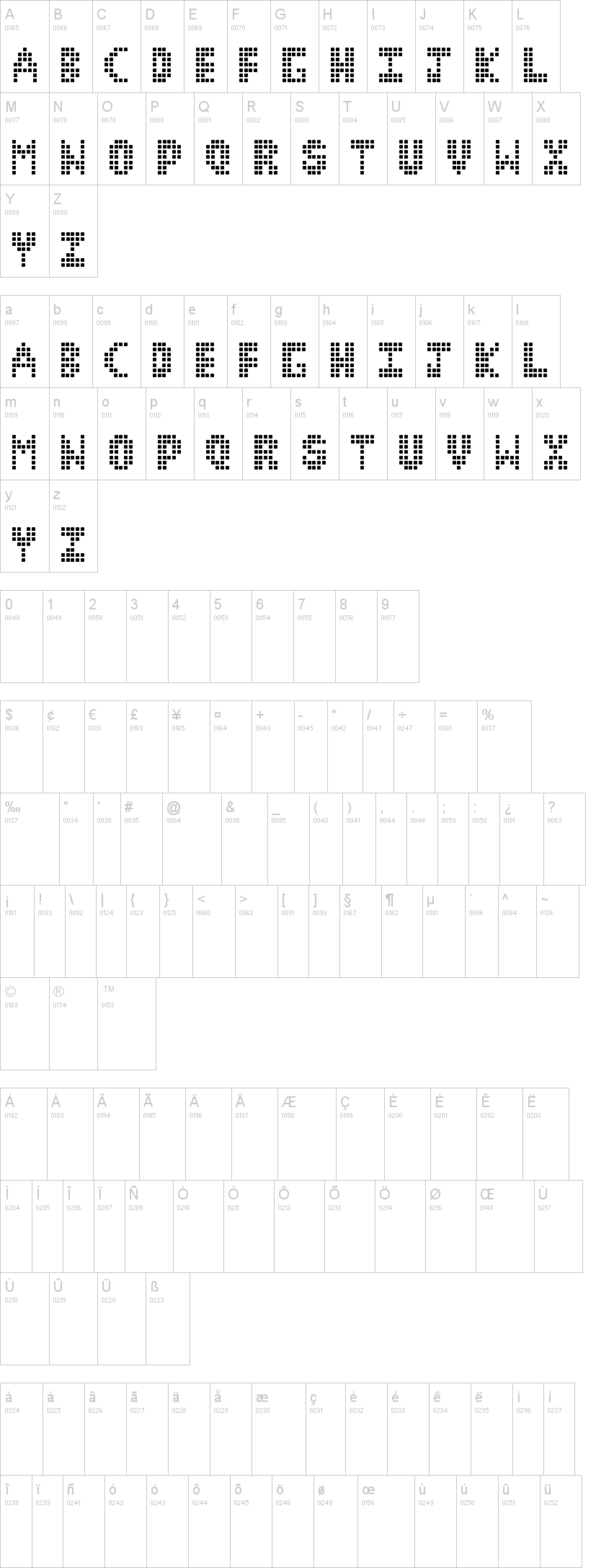
Шрифт Corrupt Pixel
Corrupt Pixel!! another caps only font, mainly for use in titles and headings! please feel free to share, download, and edit for your own use. :D